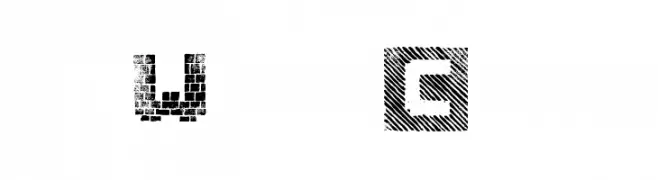
A pixelated, block-style font with a retro digital aesthetic.
A pixelated, retro-style font with a bold, geometric design.
A bold, 3D geometric font with a futuristic and industrial style.
A bold, geometric font with a modern, industrial feel.
A modern, line-patterned font with a futuristic and dynamic style.
A bold, playful font with a shiny outline and three-dimensional effect.
A modern, rounded font with bold, consistent strokes and a playful style.
A creative and eclectic display font with varied, artistic letterforms.
A bold, retro-style font with thick, exaggerated curves.